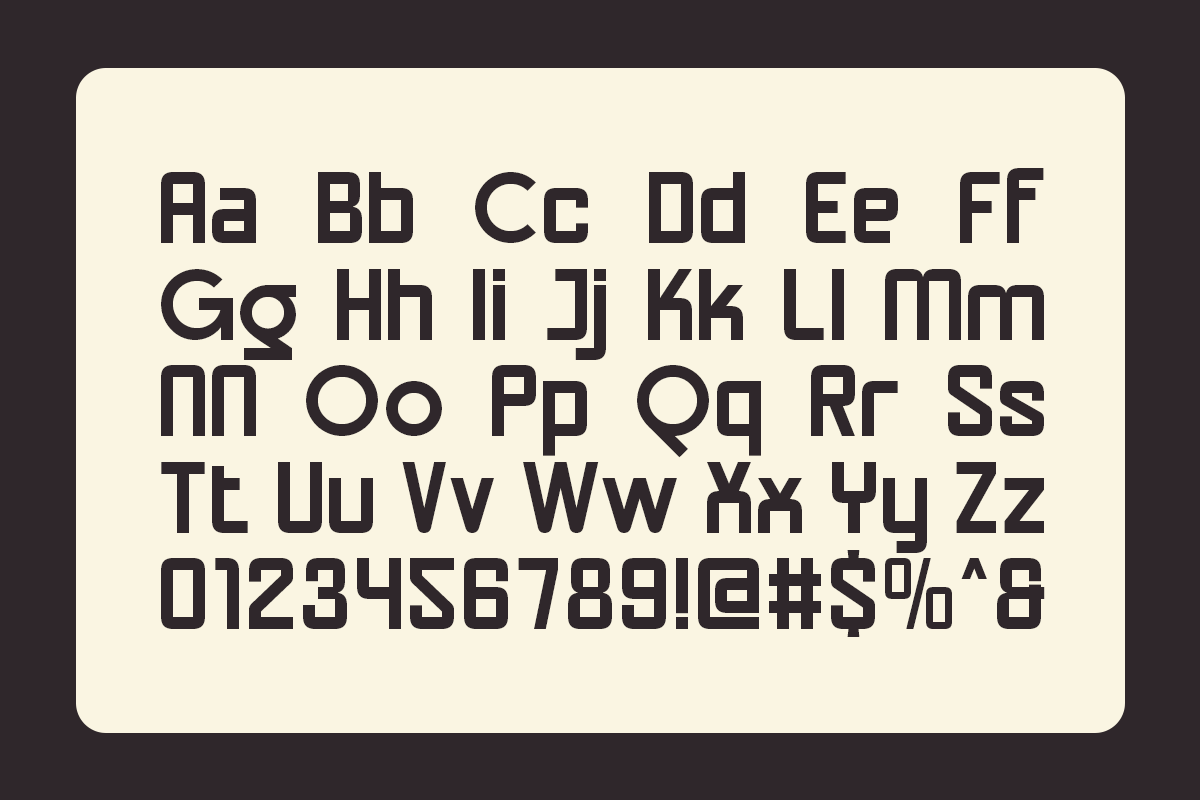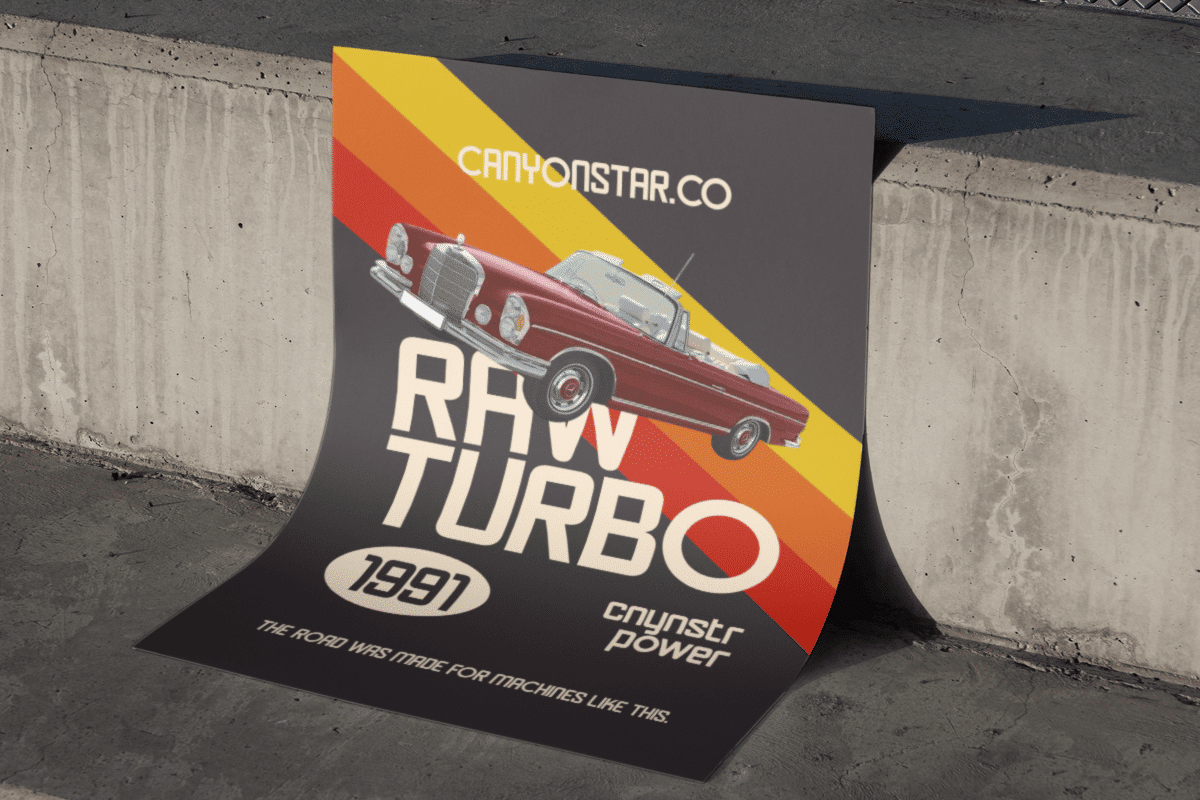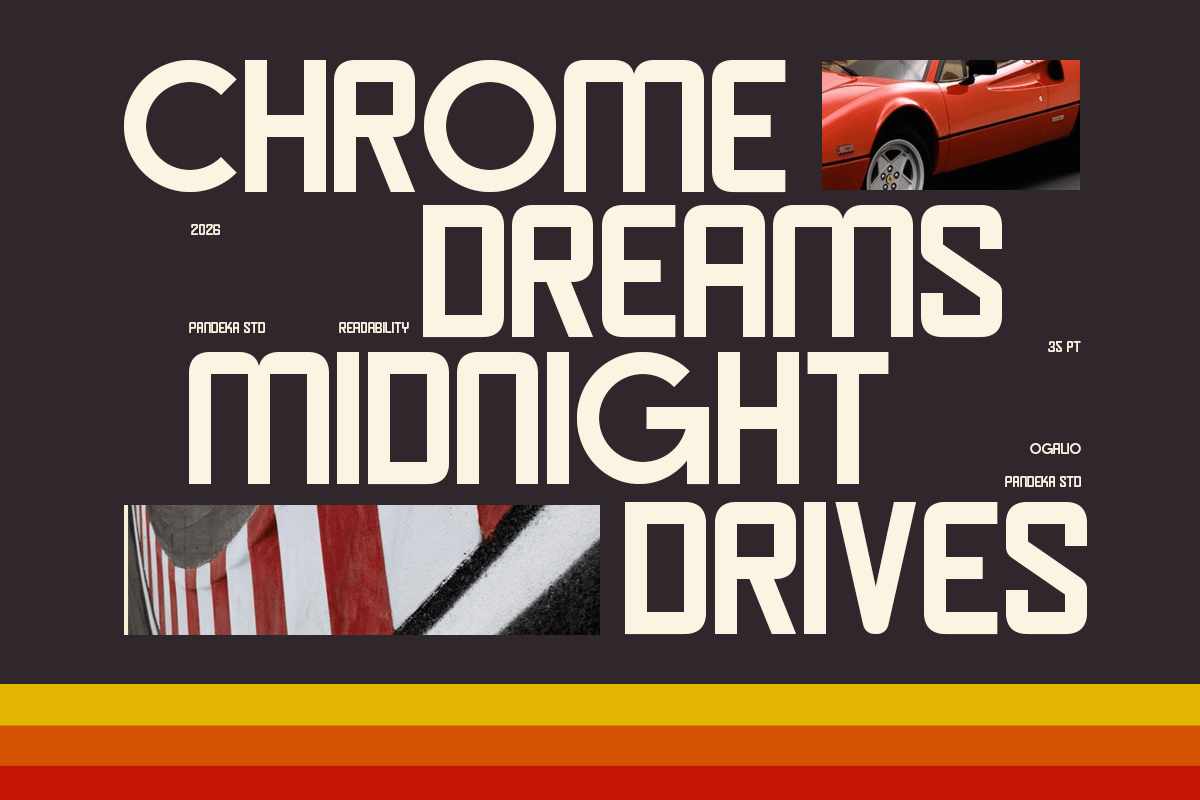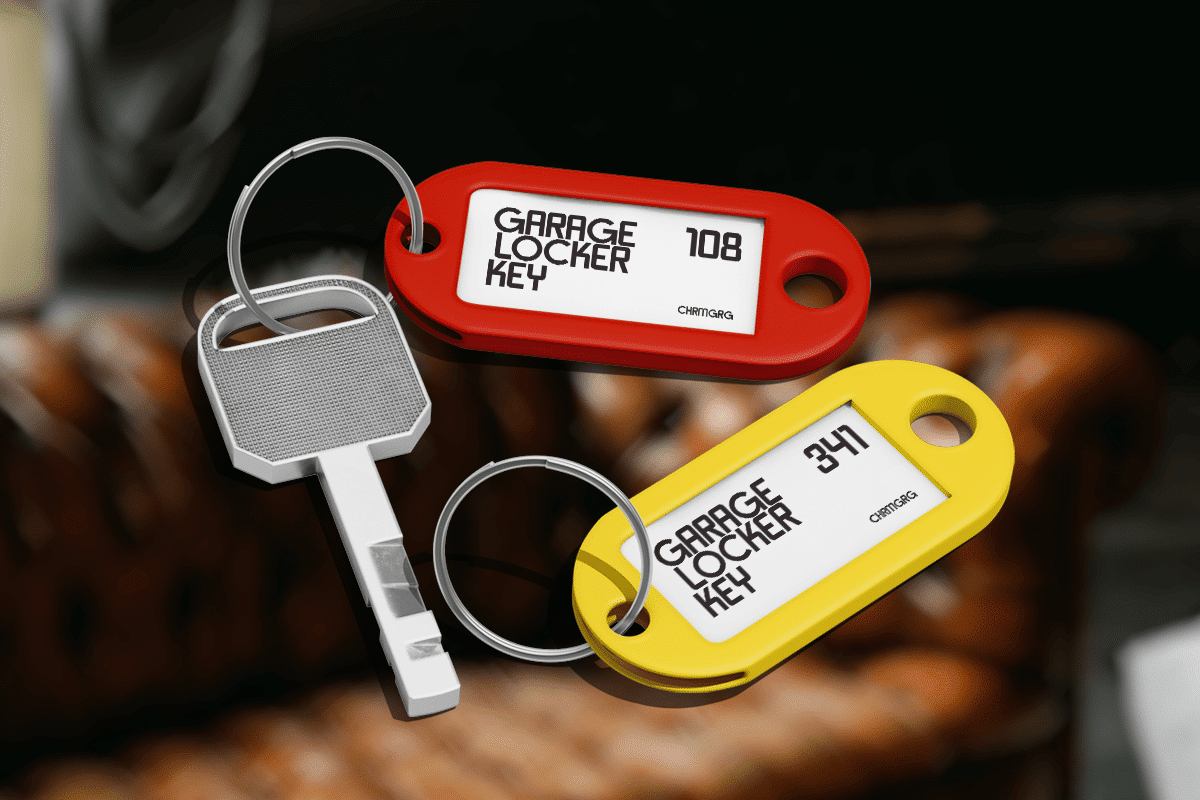
Automotive Retro Sans – Ogalio Font
Ogalio is an automotive retro sans serif font inspired by classic motorsport and vintage industrial design. With its bold shapes and nostalgic character, Ogalio brings a strong retro vibe that captures the spirit of speed, power, and timeless automotive culture.
This font comes in 1 style: Regular, and features 11+ unique ligatures that enhance its distinctive look and add more personality to your typography. It also includes uppercase, lowercase, numbers, punctuation, and multilingual support. Perfect for automotive branding, racing posters, vintage logos, garage signage, retro packaging, classic car themes, and bold headline designs.